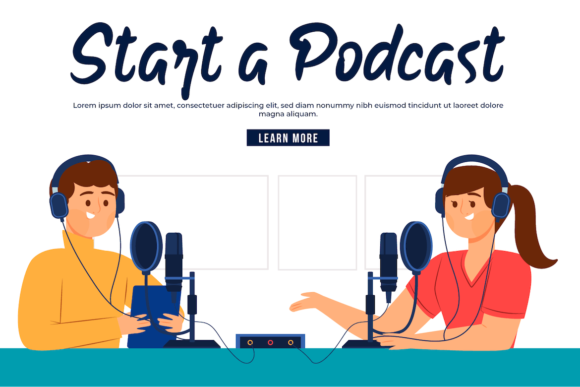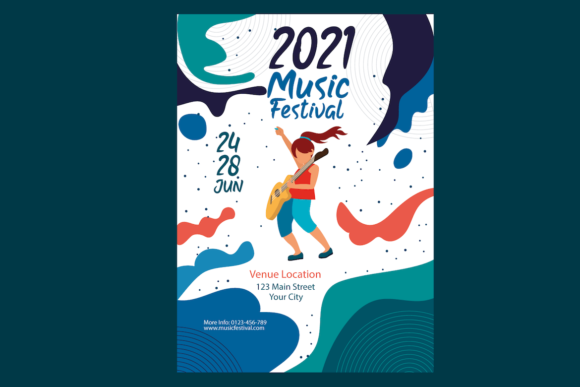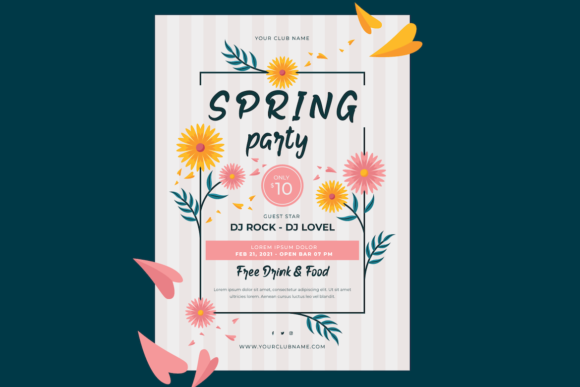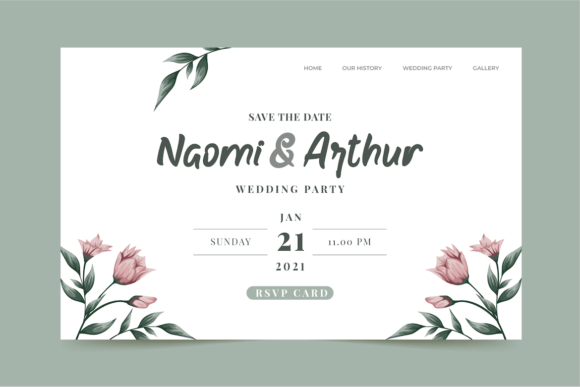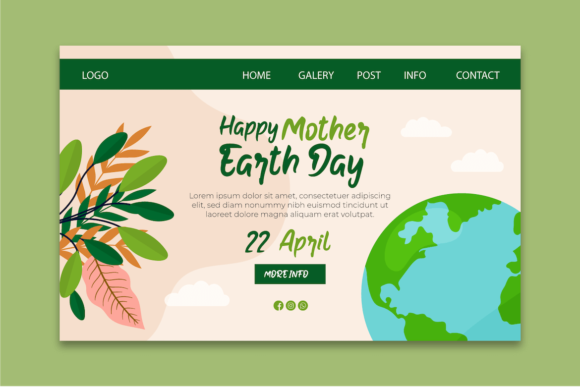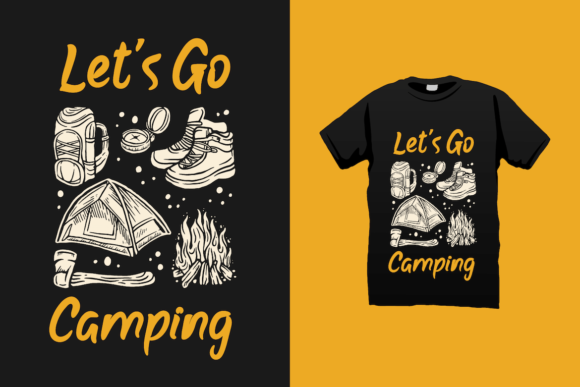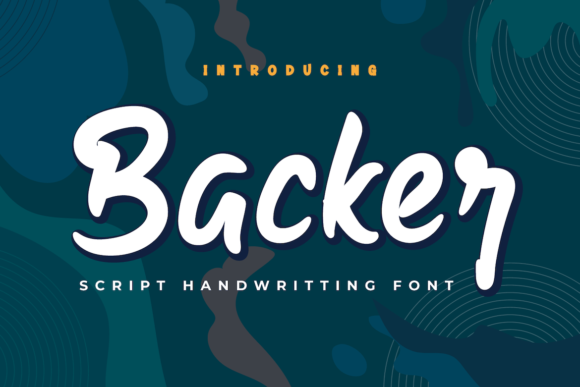
Introducing Backer Font: The Cool and Stylish Paint Brushed Handwritten Font
Are you a designer, crafter, or digital artist looking for a unique and stylish font to elevate your creative projects? Look no further than Backer Font, a cool and stylish paint brushed handwritten font that’s perfect for a variety of applications. In this article, we’ll dive into the features and benefits of Backer Font, and explore how it can be used to take your crafting, digital designing, presentations, and greeting cards to the next level.
What is Backer Font?
Backer Font is a beautifully crafted, paint brushed handwritten font that’s designed to add a touch of personality and style to your creative projects. With its unique blend of bold and delicate strokes, Backer Font is perfect for creating eye-catching headings, titles, and text that stands out from the crowd.
Key Features of Backer Font
- Cool and Stylish Design: Backer Font boasts a unique and stylish design that’s sure to grab attention. Its paint brushed strokes give it a distinctive, hand-crafted feel that’s perfect for a variety of creative projects.
- Handwritten Style: Backer Font is a handwritten font that’s designed to mimic the look and feel of handwriting. This makes it perfect for creating personal and engaging text that’s full of character.
- Versatile: Backer Font is incredibly versatile and can be used for a wide range of creative projects, including crafting, digital designing, presentations, and greeting cards.
- Easily Readable: Despite its bold and stylized design, Backer Font is surprisingly easy to read, making it perfect for use in both headings and body text.
Uses for Backer Font
Backer Font is an incredibly versatile font that can be used for a wide range of creative projects. Here are some ideas to get you started:
- Crafting: Use Backer Font to add a personal touch to your crafting projects, such as scrapbooking, card making, and DIY gifts.
- Digital Designing: Backer Font is perfect for use in digital designs, such as social media graphics, blog posts, and website headers.
- Presentations: Add a touch of style and personality to your presentations with Backer Font. It’s perfect for use in titles, headings, and bullet points.
- Greeting Cards: Use Backer Font to create beautiful and personalized greeting cards for special occasions, such as birthdays, weddings, and holidays.
Why Choose Backer Font?
So why choose Backer Font over other fonts? Here are just a few reasons why Backer Font stands out from the crowd:
- Unique Design: Backer Font boasts a unique and stylish design that’s sure to grab attention.
- High-Quality: Backer Font is a high-quality font that’s designed to deliver exceptional results.
In conclusion, Backer Font is a cool and stylish paint brushed handwritten font that’s perfect for designers, crafters, and digital artists. With its unique design, versatility, and ease of use, Backer Font is an excellent choice for a wide range of creative projects. Whether you’re looking to add a personal touch to your crafting projects, create eye-catching digital designs, or simply want to add some style to your presentations and greeting cards, Backer Font is the perfect choice. So why wait? Download Backer Font today and start taking your creative projects to the next level!